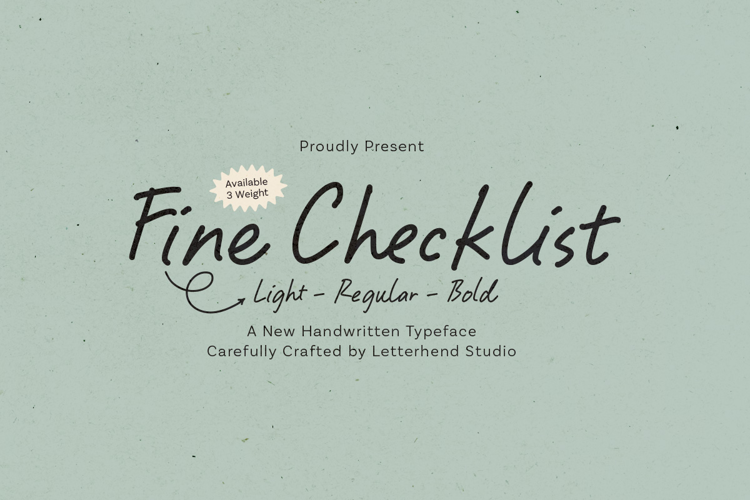
Fine Checklist Font
Fine Checklist is a clean handwritten typeface with a natural, everyday writing feel. The strokes are smooth, slightly textured, and easy to read, giving it a calm and friendly vibe. With light, regular, and bold weights, this font is flexible for notes, planners, packaging, labels, posters, and casual branding. It feels simple, honest, and relaxed—perfect for designs that want a neat handwritten look without feeling messy.